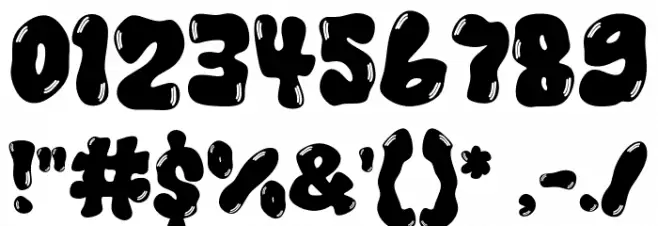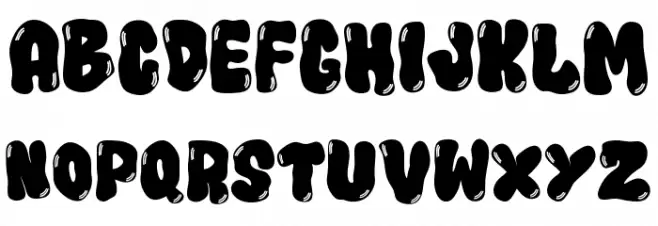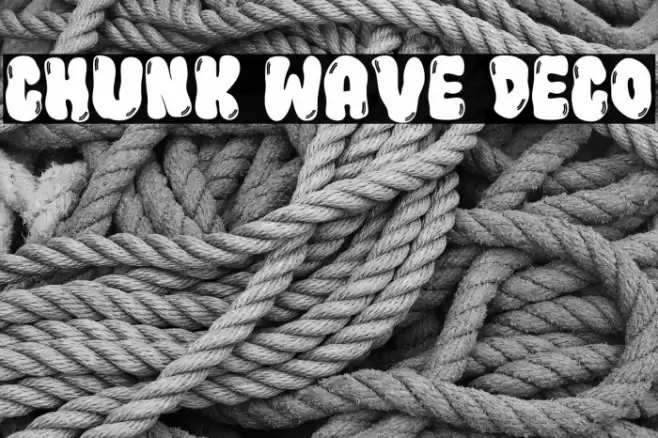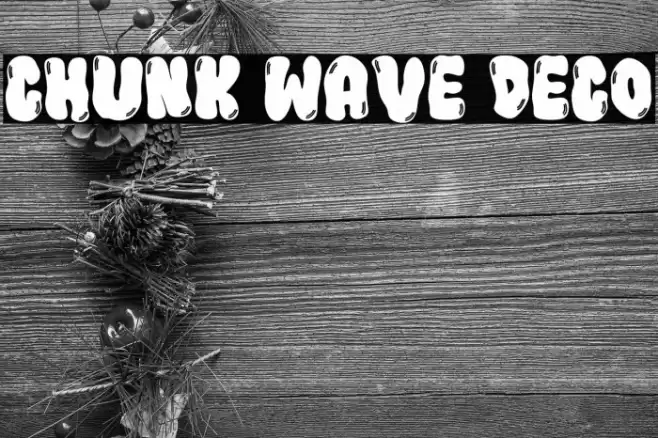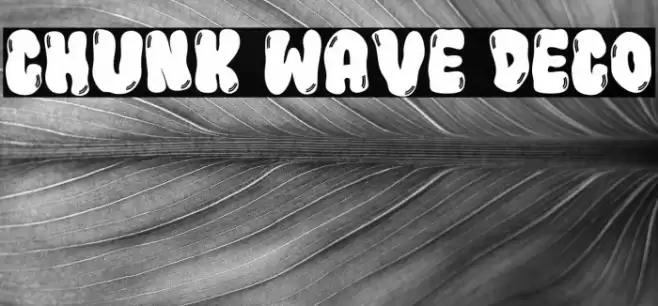
Chunk Wave Deco Font
Chunk Wave Deco Description
A playful, bold, and bubbly display font with irregular, rounded shapes that resemble inflated or cartoonish lettering.
| Overall Style | Playful, Cartoonish, Whimsical |
| Use Case | Headlines, Posters, Children's products, Logos |